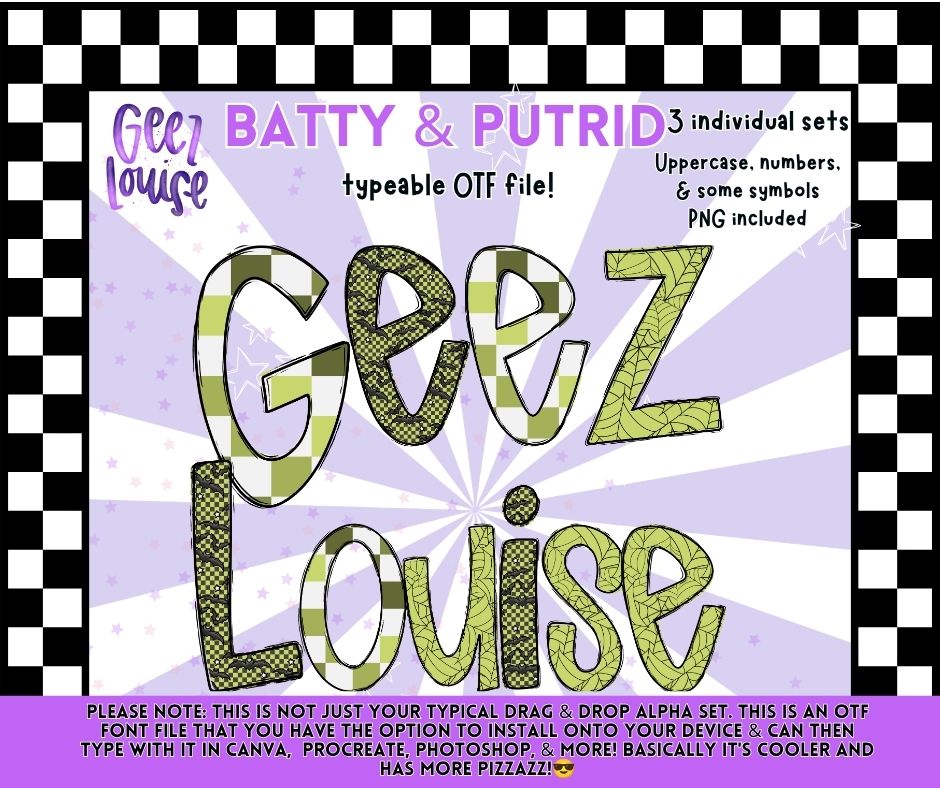
Batty & Putrid OTF Alpha Bundle | Typeable Font & PNG Alphabet Set
Get three spooky alphabets in one with the Batty & Putrid OTF Alpha Bundle! This collection includes 3 individual typeable OTF sets featuring creepy-cute Halloween patterns and textures, plus matching PNG files for even more creative possibilities.
- Uppercase Letters
- Numbers & Select Symbols